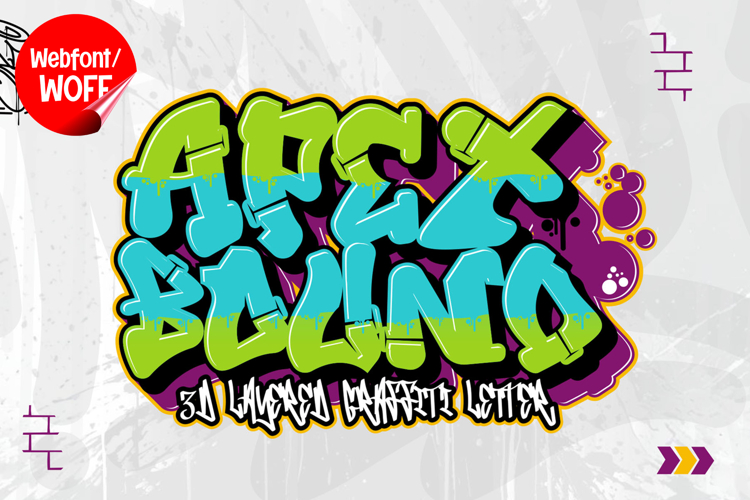
Apex Bound | 3D Layered Webfont for Bold Modern Impact
Apex Bound is a 3D layered webfont designed to deliver depth, strength, and a modern visual impact for contemporary website design. With its bold structure and dimensional layering, this font creates a powerful and eye-catching typographic presence that instantly draws attention. It is an excellent choice for projects that require a strong, confident, and visually dynamic style.
Apex Bound includes a complete set of uppercase characters designed with bold forms enhanced by 3D layered construction. The dimensional effect adds depth and visual hierarchy, making each letter appear more prominent and impactful. These characteristics make it ideal for headlines, banners, hero sections, and featured content where strong emphasis is needed.
In addition to letters, the font includes numbers and punctuation, providing flexibility for various web design elements. It works well for promotional text, product highlights, branding elements, and call-to-action sections. Each character maintains a consistent layered style, ensuring a cohesive and unified visual identity throughout the layout.
With multilingual support, Apex Bound includes a wide range of accented characters, making it suitable for international websites and global audiences. This ensures content remains clear and accessible across different languages while maintaining its bold and modern aesthetic.
The 3D layered style of Apex Bound makes it especially suitable for technology websites, digital campaigns, product showcases, gaming interfaces, and creative portfolios. Its strong and dimensional appearance adds depth and sophistication, helping websites stand out in visually competitive environments. The layered structure also enhances visual storytelling by creating a sense of movement and structure.
Despite its bold and decorative appearance, Apex Bound is designed with readability in mind. The spacing and proportions are carefully balanced to ensure clarity, particularly in display sizes. This allows designers to use the font effectively for impactful headings and short content without compromising usability.
Apex Bound is a webfont that combines dimensional design with modern digital performance. Its bold shapes, layered depth, and clean structure create a distinctive typographic presence that enhances website design. For projects that require a strong, modern, and visually engaging display font, Apex Bound offers a reliable and powerful solution.